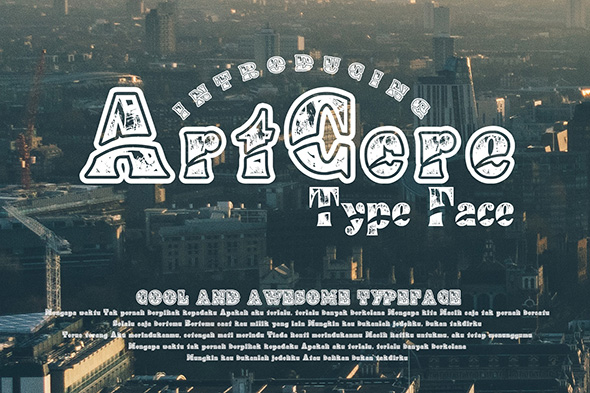
The ArtCore Font: A Designer’s New Best Friend
I still remember the frustration of working on a project, hours spent perfecting every detail, only to be held back by one thing: the font. My client wanted something modern, yet elegant; something that would make their brand stand out. I scoured the internet, tried font after font, but nothing seemed quite right. That was until I stumbled upon the ArtCore font by Gblack Id. It was like a breath of fresh air – the perfect blend of style and versatility.
- ✨ Unique Character: ArtCore has a distinct personality that sets it apart from more generic fonts.
- ✅ Highly Versatile: Whether you’re working on a logo, a poster, or a website, ArtCore adapts seamlessly.
- 💡 Innovative OpenType Features: The font comes with a range of stylistic alternates and glyphs, giving you plenty of creative options.
- 📚 Extensive Language Support: ArtCore supports multiple languages, making it a great choice for global brands.
While ArtCore is an excellent font, there are a few things to keep in mind:
- 🤔 Legibility at Small Sizes: Like many artistic fonts, ArtCore can be a bit tricky to read at very small sizes. It’s best used at 14px or larger.
- ⚠️ Glyph Compatibility: Some glyphs might not work perfectly in all software. Always test in your design environment.
The story behind ArtCore is one of creativity and passion. Gblack Id, the creator, aimed to craft a font that would inspire designers to push the boundaries of their work. With a keen eye for detail and a deep understanding of typographic design, Gblack Id poured their heart into making ArtCore not just a font, but a tool for artistic expression.
| Font Name | ArtCore Font |
| Author | Gblack Id |
| What makes ArtCore unique? | ArtCore’s unique character, extensive language support, and innovative OpenType features set it apart. |
| Is ArtCore suitable for body text? | While ArtCore is stunning for headings and titles, its legibility at small sizes can be limited. It’s best used for larger text. |